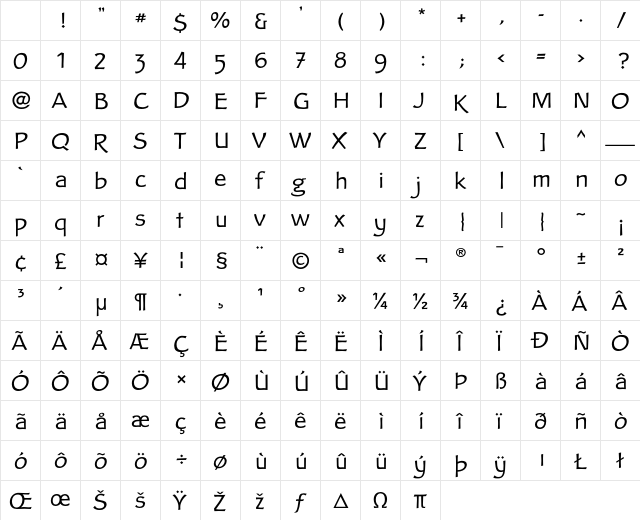
Complete Clair Light glyph index. Displaying only characters natively supported by Clair Light font.
Clair is a composed and adaptable typeface that performs quietly and consistently across a wide range of design contexts. Its slender proportions lend an understated elegance to any composition.